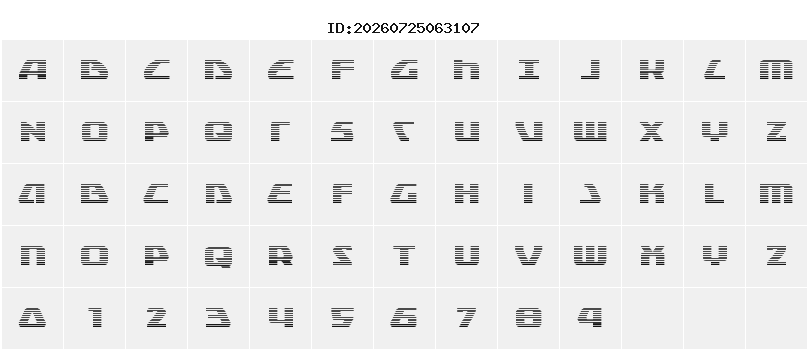
• Font Name: Global Dynamics Gradient
About Global Dynamics Gradient.ttf
Global Dynamics Gradient.ttf is a modern, elegant sans-serif font designed for ultimate readability and visual harmony. Perfect for branding, headlines, web design, and print materials.